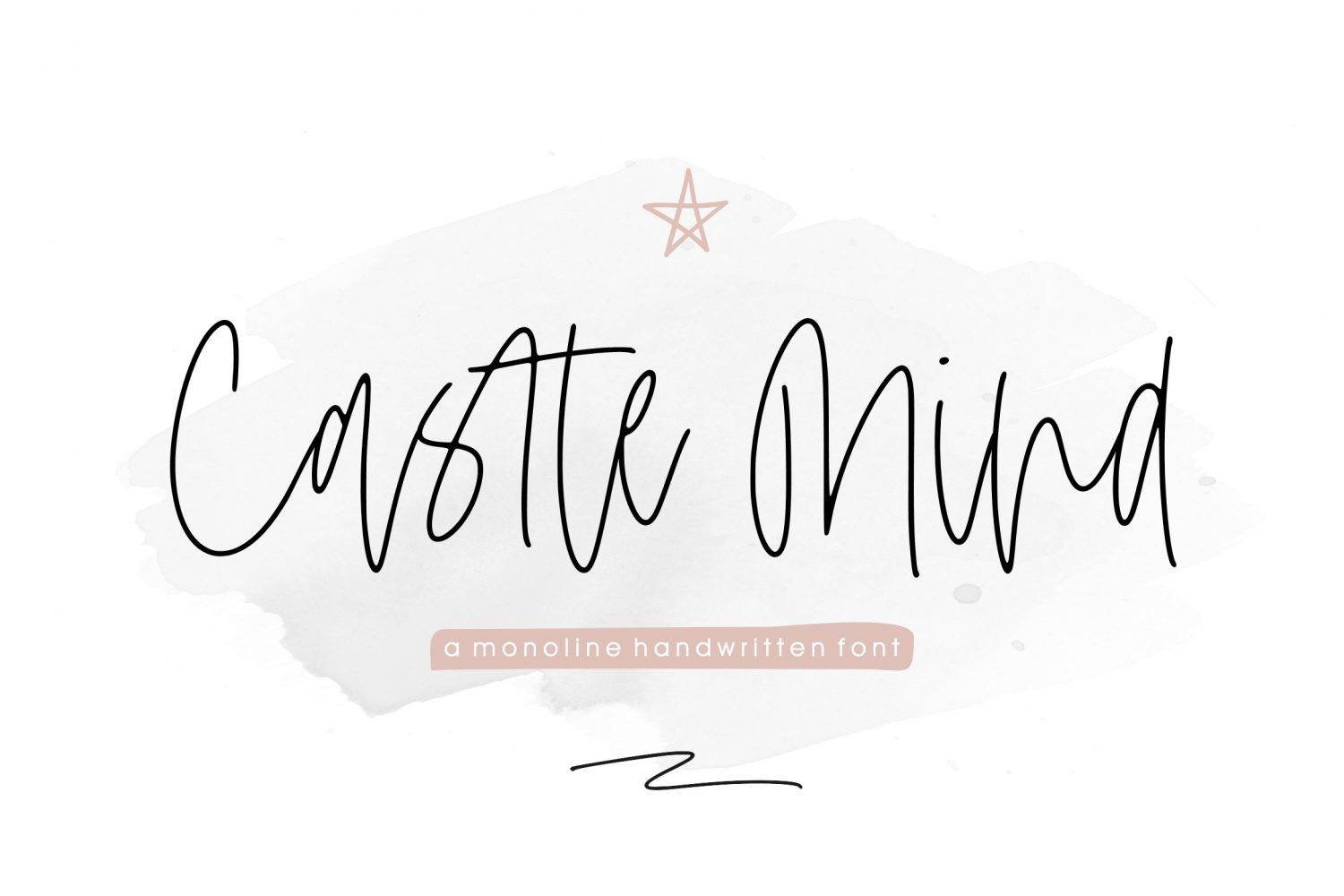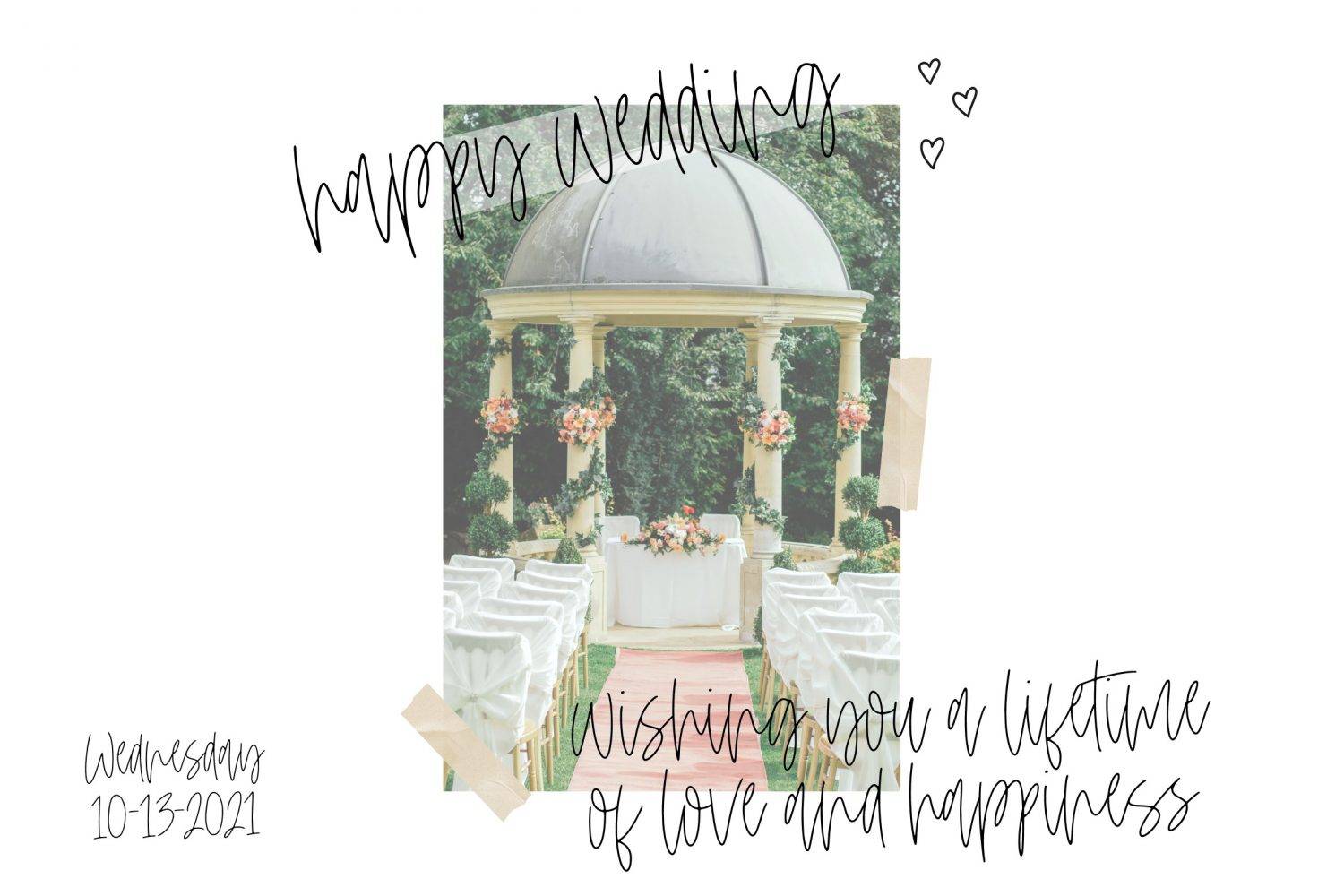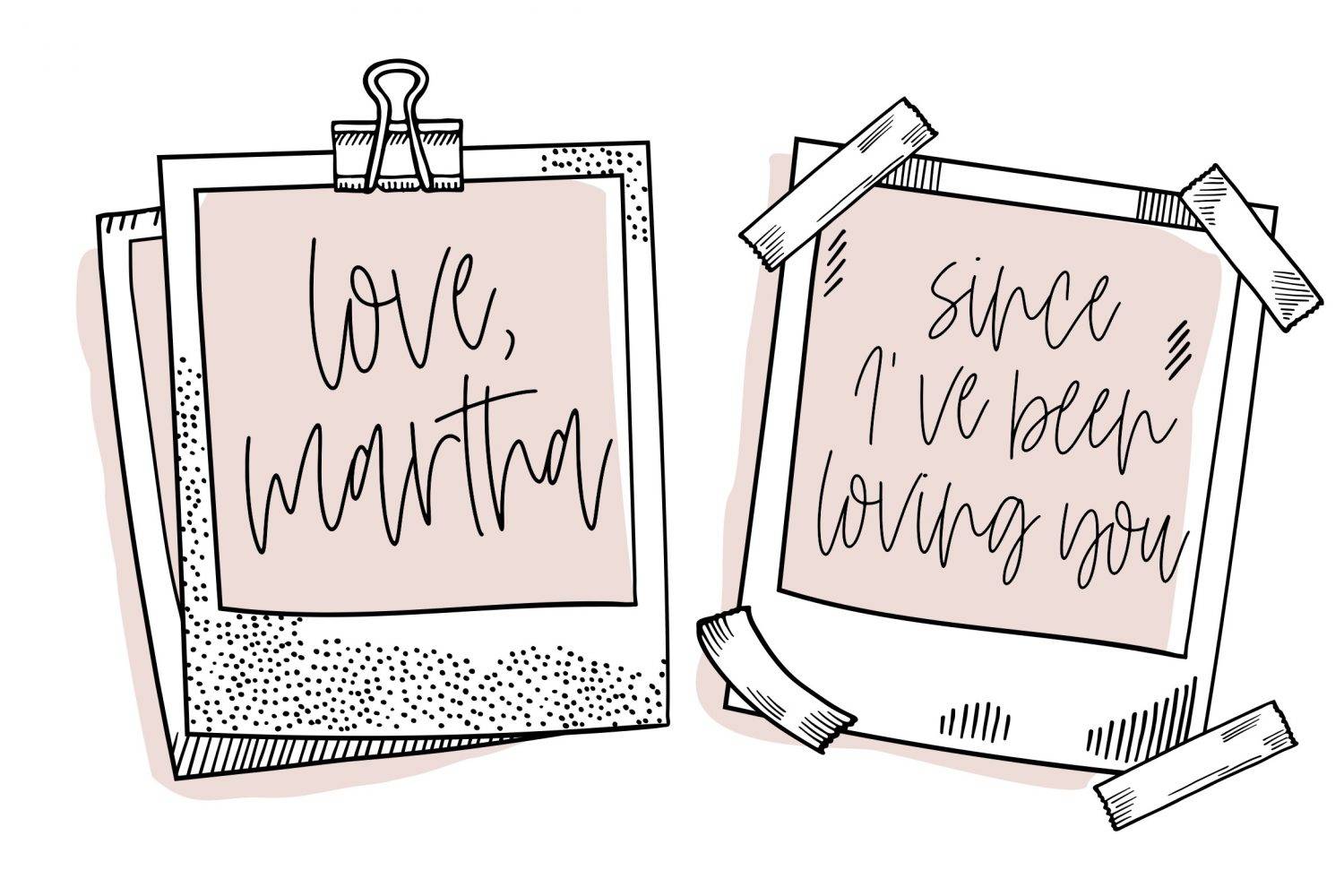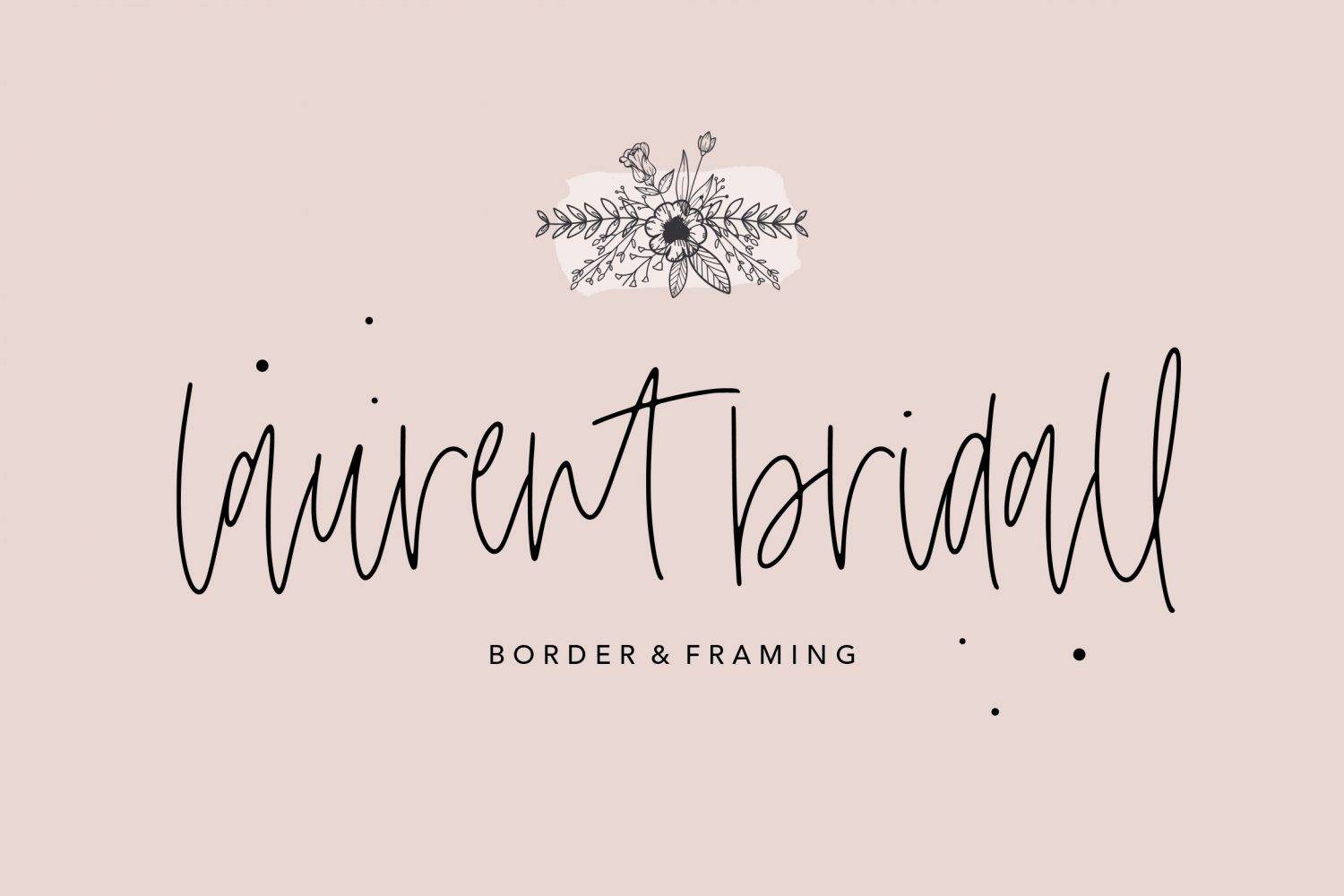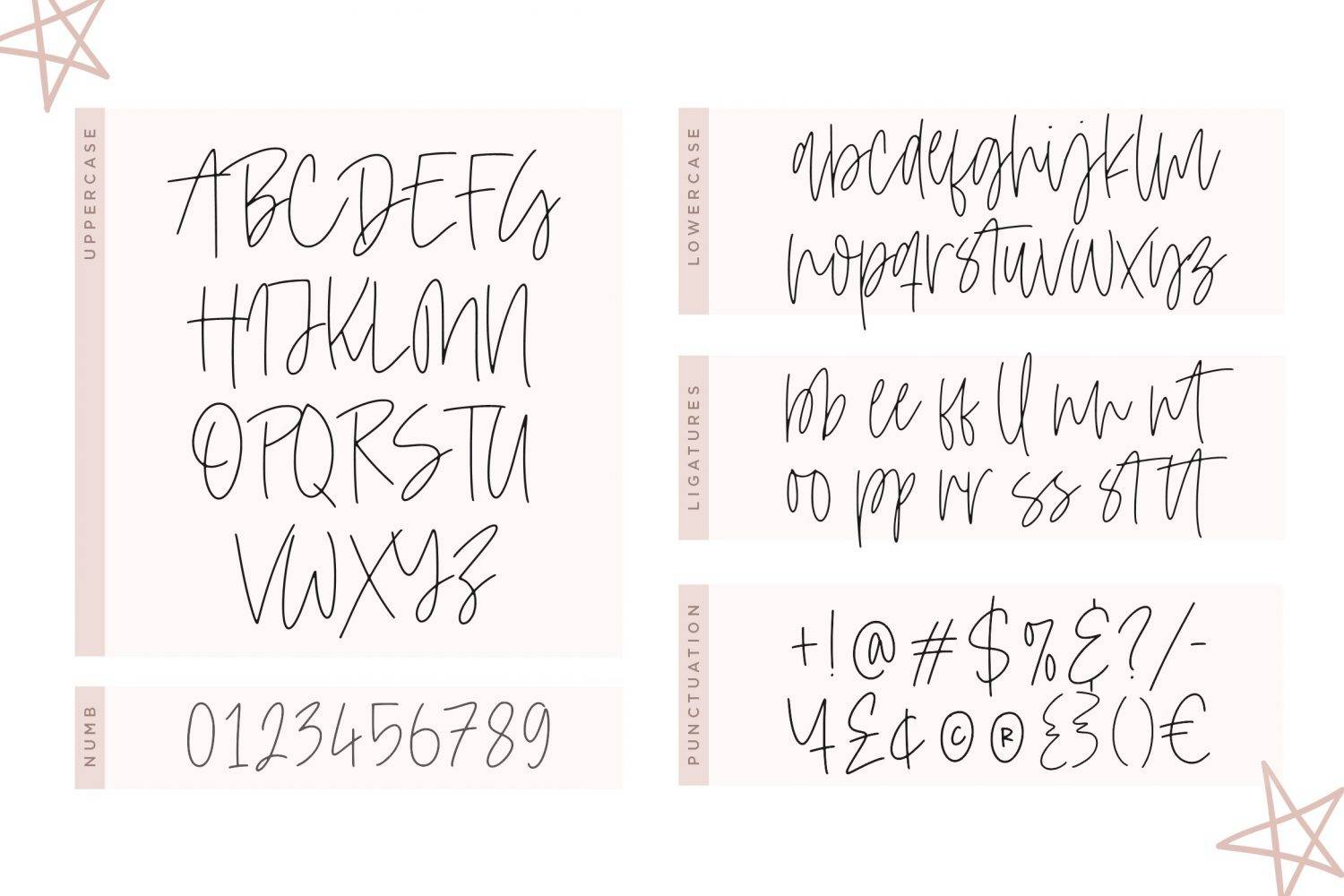
Castle Mind is a delicate, hand-drawn script font with a tall, narrow structure and fluid, irregular strokes that give it an artistic and personal touch. Its light weight and airy spacing create an elegant yet casual feel, making it perfect for creative projects like invitations, branding, and editorial designs that seek a modern, whimsical, and intimate vibe.
Castle Mind Font
About Castle Mind Font
| Font family | Castle Mind Font |
| Designer | Annas Alam Yahya |